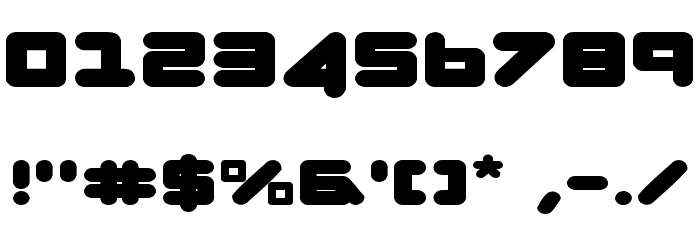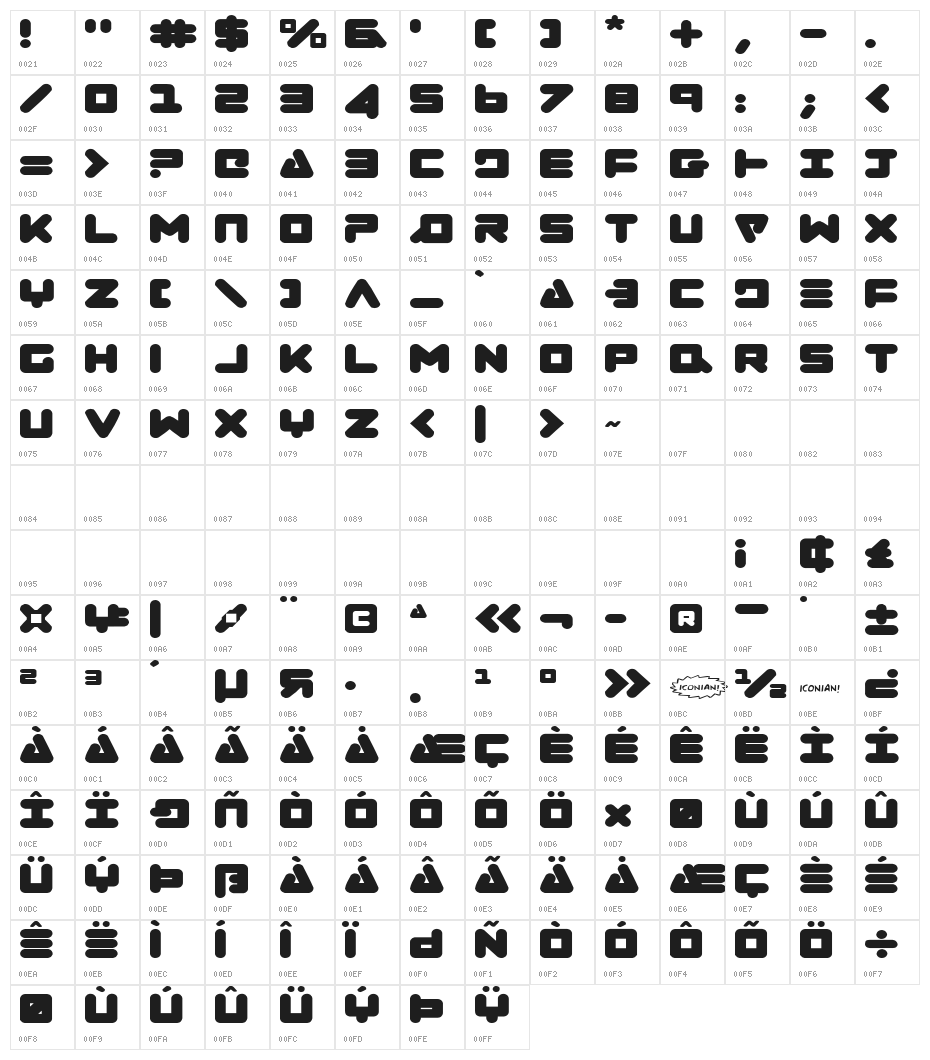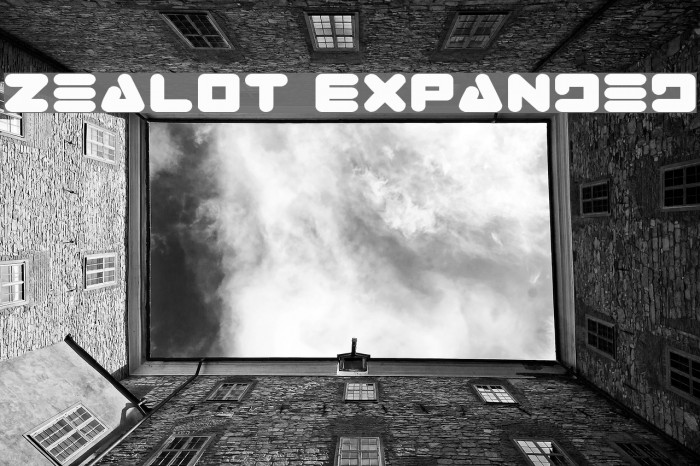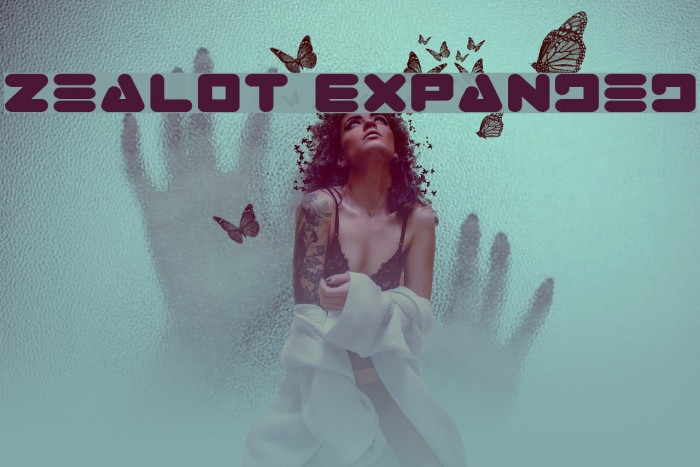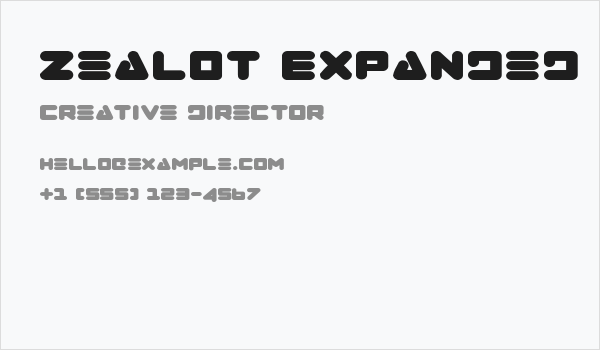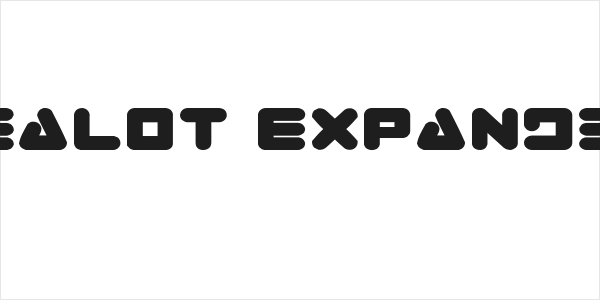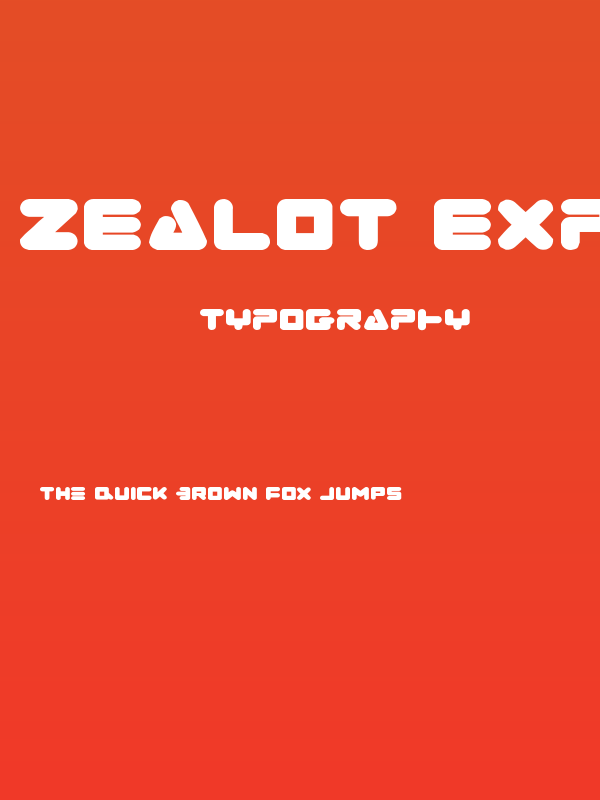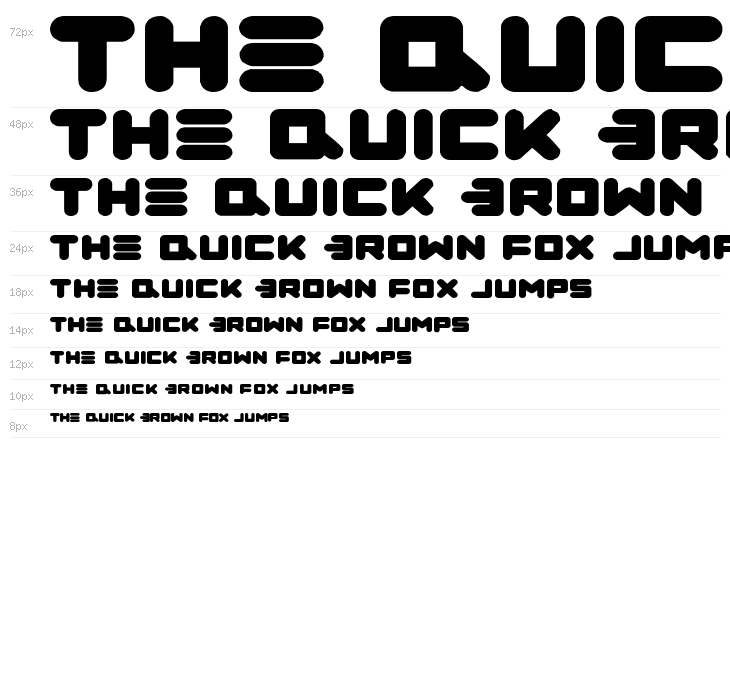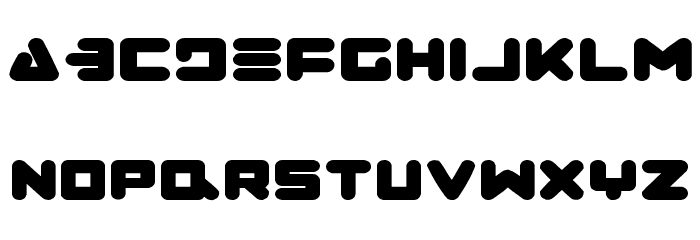
Zealot Expanded Font
Zealot Expanded Description
This font features a bold and futuristic design with a distinctly geometric and blocky appearance. The characters are uniformly thick, with rounded edges that soften the overall look. Each letter and number is crafted with a sense of uniformity and precision, making it ideal for modern and tech-oriented designs. The font's expanded width gives it a strong presence, while the consistent stroke weight ensures readability. Special characters maintain the same bold style, integrating seamlessly with the alphanumeric set.